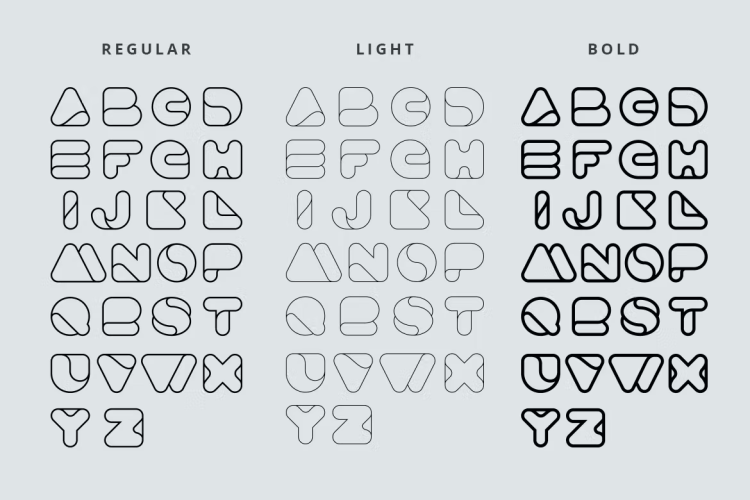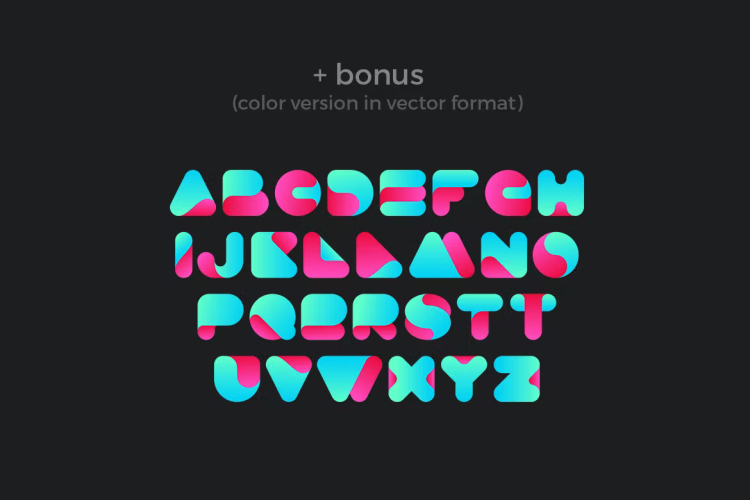
Advio Friendly Font
Advio Friendly Font is a creative font that can be used as logo design and branding, titles & headers, posters & banners in such areas as high-tech, internet & computers…
Advio Friendly Font is a creative font that can be used as logo design and branding, titles & headers, posters & banners in such areas as high-tech, internet & computers, business innovations, sport & entertainment etc.
Where Advio Friendly Font works best
Event & seasonal design
Advio Friendly Font suits themed posters, holiday campaigns, festival identities and party invitations.
Game & entertainment titles
Decorative letterforms are a natural fit for game logos, movie-style titles and merch.
Packaging accents
Use Advio Friendly Font sparingly for product names or flavour labels that need personality.
What is Advio Friendly Font good for?